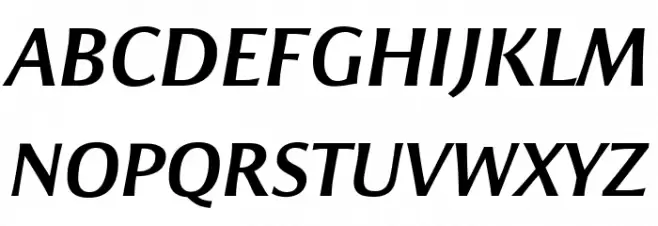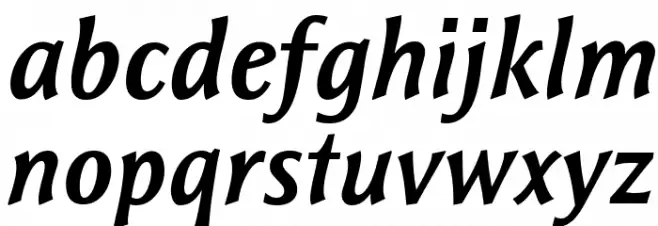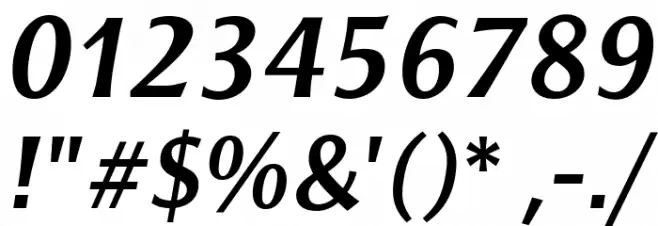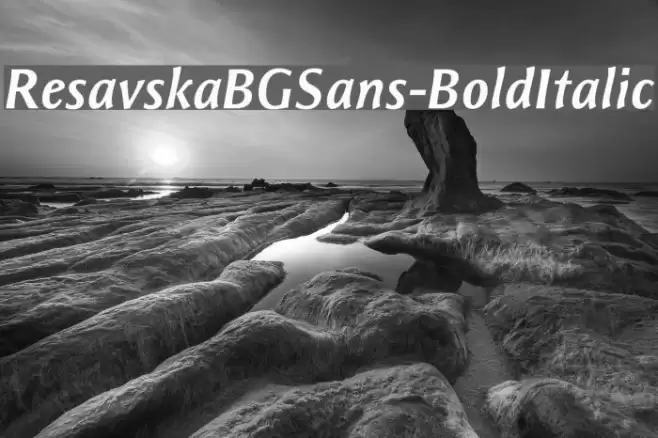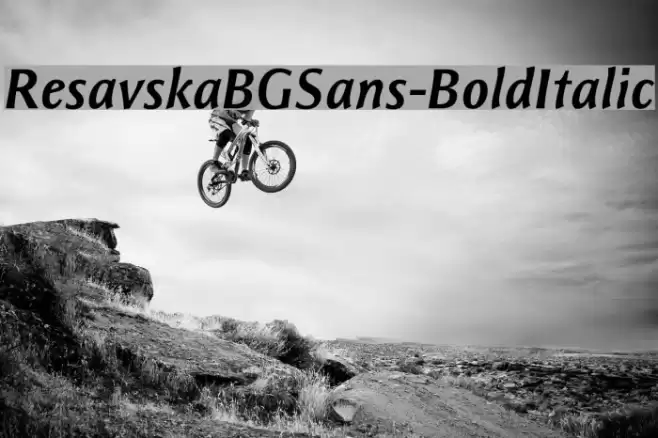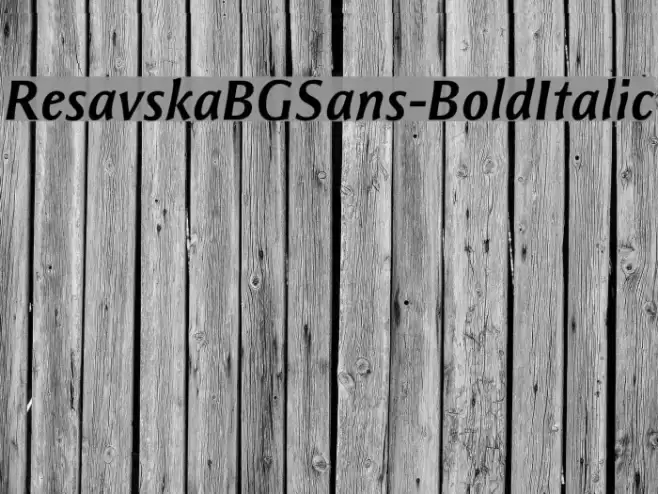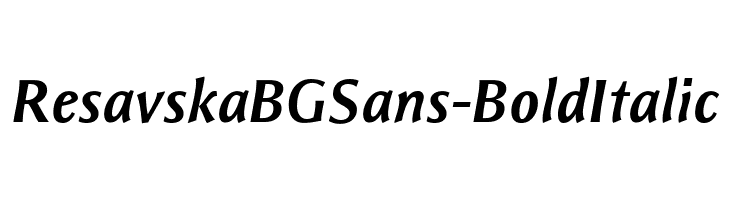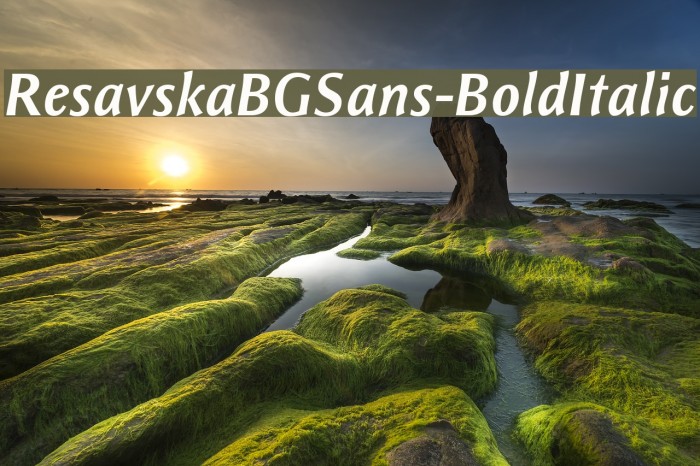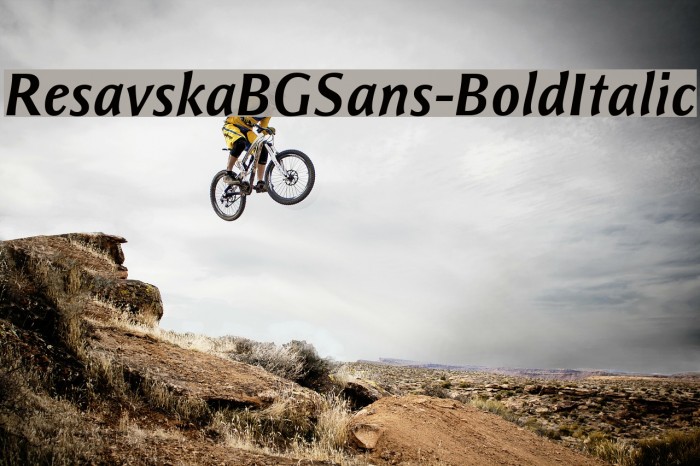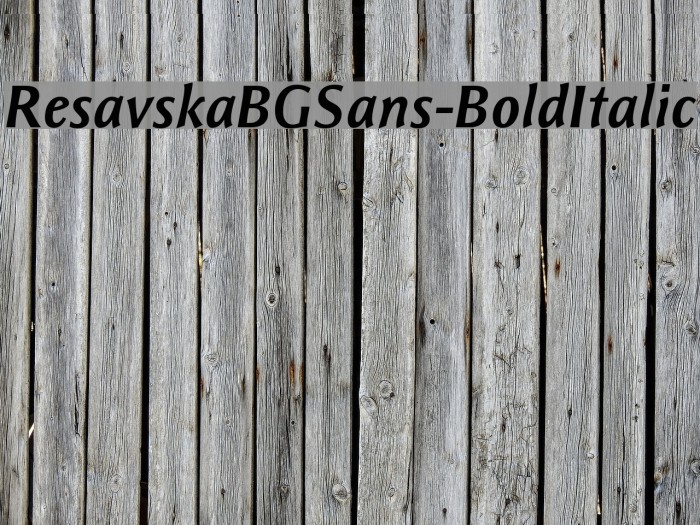
ResavskaBGSans-BoldItalic
This font features a bold and italic style, characterized by its clean and modern sans-serif design. The letters are slightly slanted, giving a dynamic and forward-moving appearance. The strokes are consistent in thickness, providing a uniform look across all characters. The uppercase letters are well-proportioned, while the lowercase letters maintain a smooth and flowing form. Numbers are clear and easy to read, with a balanced height that matches the letterforms. Special characters are distinct and integrate seamlessly with the rest of the font, making it versatile for various uses.
A bold, italic sans-serif font with a modern and dynamic style.
- Proposed Projects: Ideal for branding, advertising, and editorial design where a modern and bold statement is needed.
- Use Case: Headlines, Logos, Branding